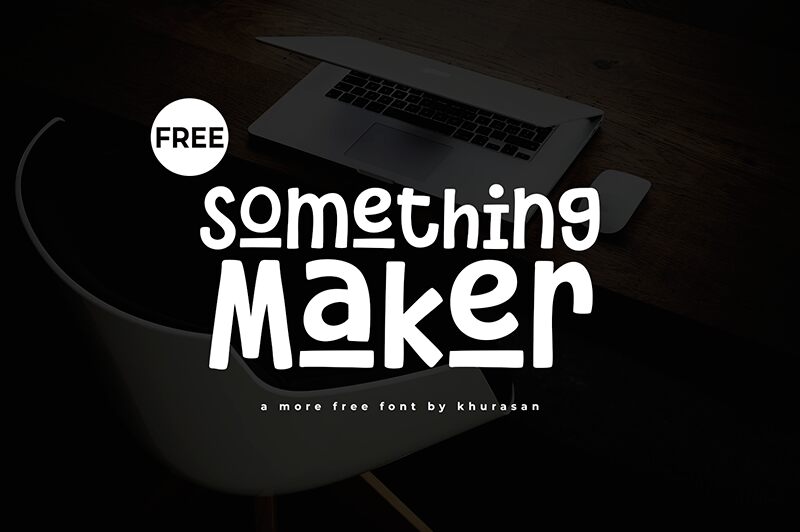
Something Maker
Something Maker font, crafted by Khurasan, is a vibrant cartoon display font that exudes playful charm and creative energy. Its bold, quirky letterforms capture attention with their unique character, perfect for projects seeking a whimsical touch. The exaggerated shapes and lively style make it ideal for children’s books, posters, and fun branding endeavors.